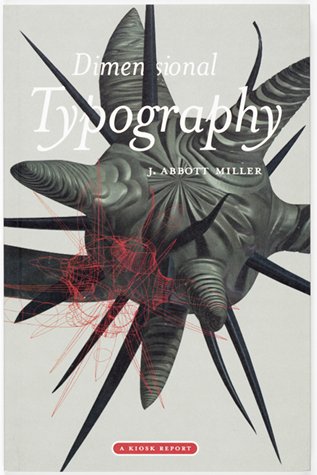
Three–dimensional Typography: Words in Space
Today's computer technologies have allowed for the creation of new spaces for typographic communication. This collection of drawings, photographs, and typefaces explores some of the ideas that might govern the logic of three-dimensional type. It presents and analyzes letterforms based on both traditional and contemporary typefaces, freely mixing historical references and futuristic aspirations. Author J. Abbott Miller considers the ways in which letters have become three-dimensional in certain genres such as signage, and discusses how typefaces have incorporated the illusion of dimensionality on the printed page."Dimensional Typography" is the first title in our new series Kiosk Reports. Edited by J. Abbott Miller and Ellen Lupton, this inexpensive, small-format line of books will explore current ideas on graphic design, much as our Pamphlet Architecture series does for architecture.